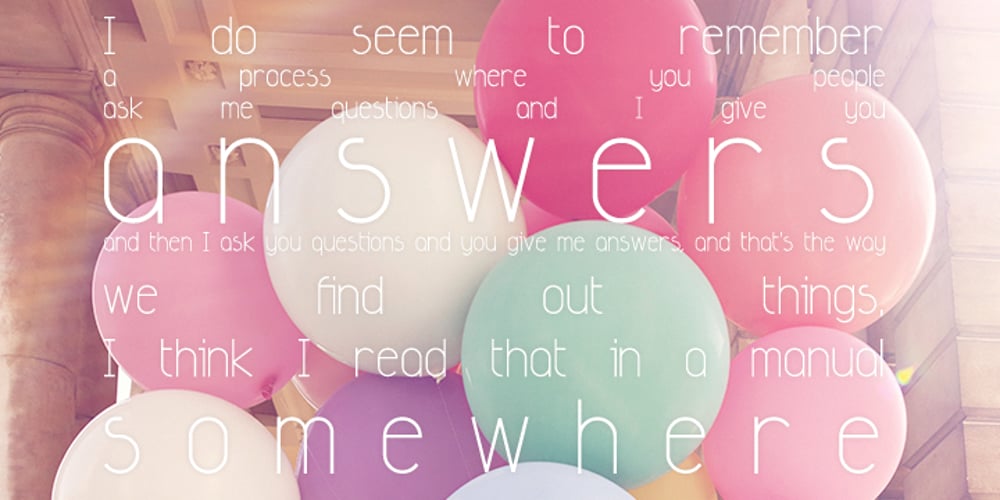
FM Ted
FM Ted font
FM Ted Font Family was designed by Elwin Berlips and published by FontMeister. FM Ted contains 1 styles and family package options. ‘Ted’ is a geometric typeface. It is a synthesis of the geometric and the humanistic. It has both mathematical straightforwardness, and humanistic refinement. It will shine in both headlines and text. It is well suited for graphic design and corporate identity design. It’s tall shape, high middle line and form gives ‘Ted’ neo art-deco look and feel.